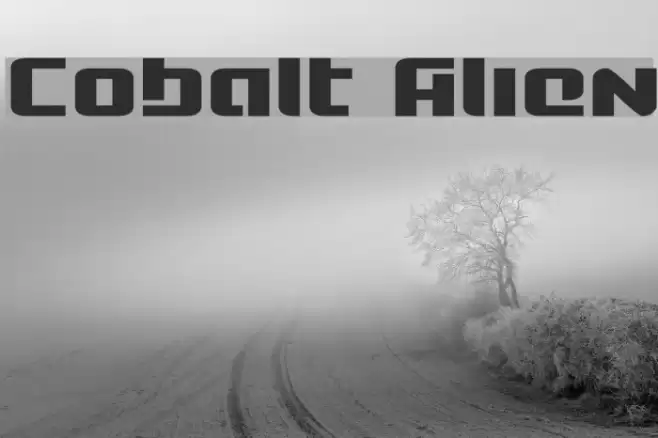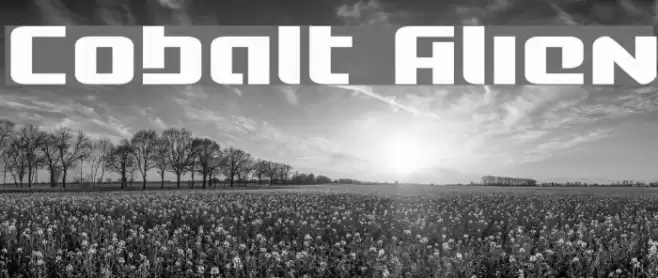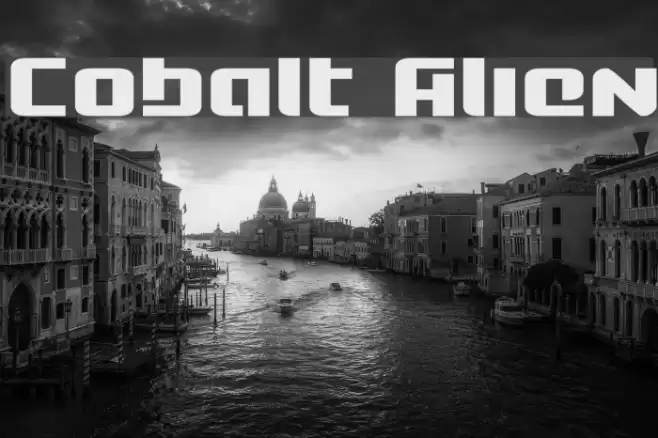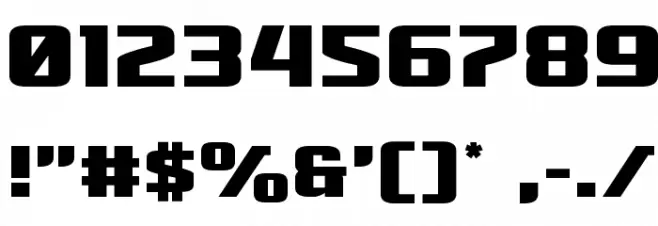
Cobalt Alien Font
Cobalt Alien Description
This font features a bold and futuristic design with geometric elements that give it a strong, impactful appearance. The uppercase letters are characterized by sharp angles and a blocky structure, while the lowercase letters maintain a consistent style with slightly softer edges. The numbers are equally bold, ensuring readability and uniformity across different uses. Special characters are designed to match the overall aesthetic, making them suitable for various design contexts. The font's unique style makes it ideal for projects that require a modern and edgy look.
A bold, geometric font with a futuristic and impactful design from Uncategorized fonts.
- Proposed Projects: Ideal for sci-fi themed projects, video game titles, technology branding, and modern posters.